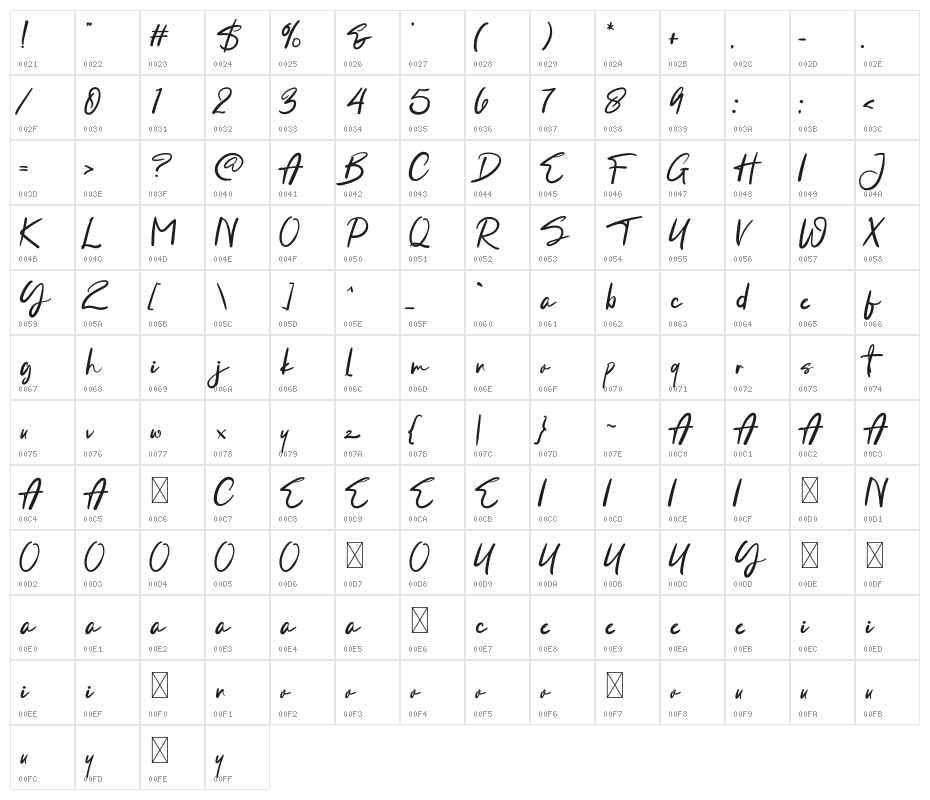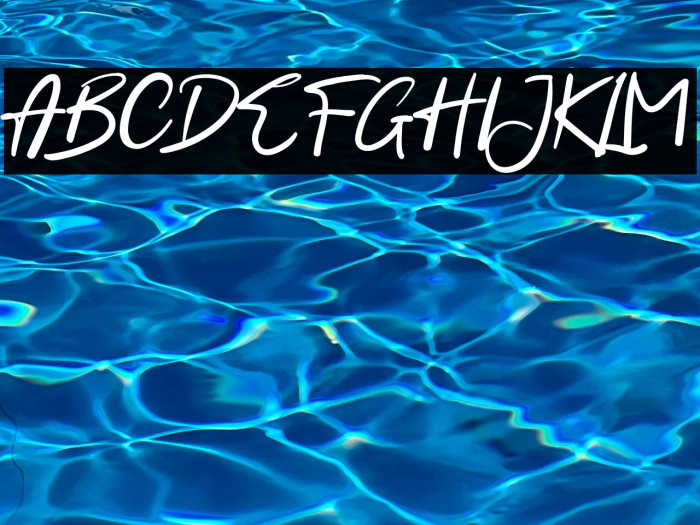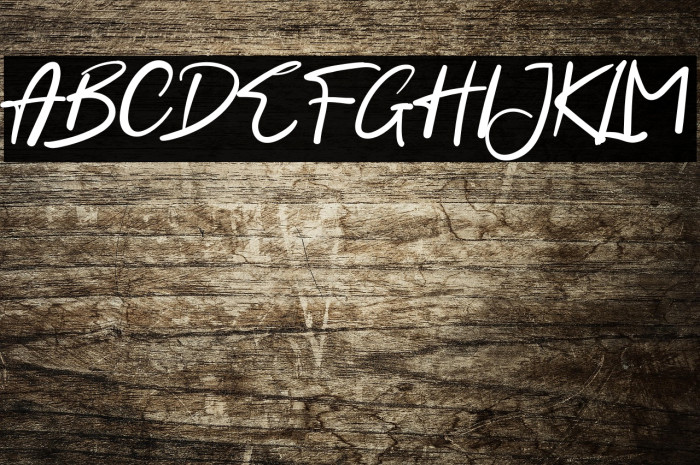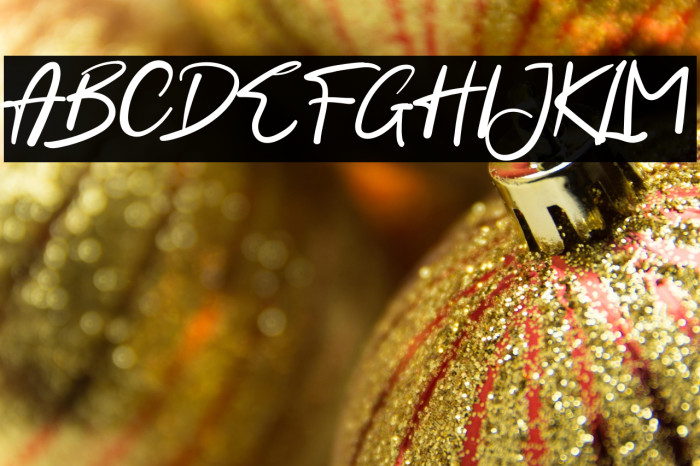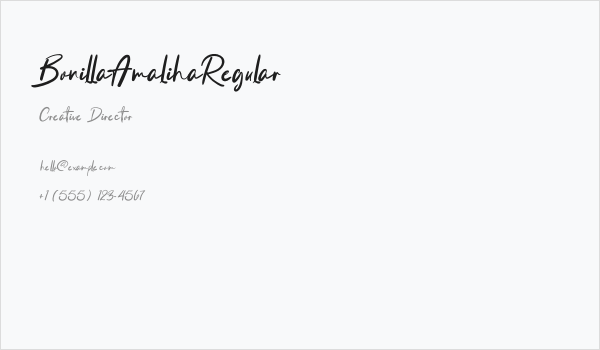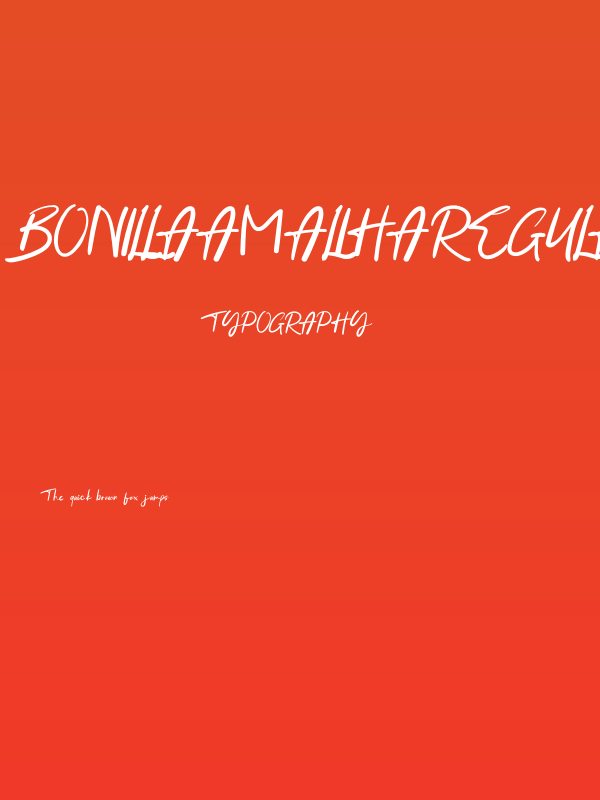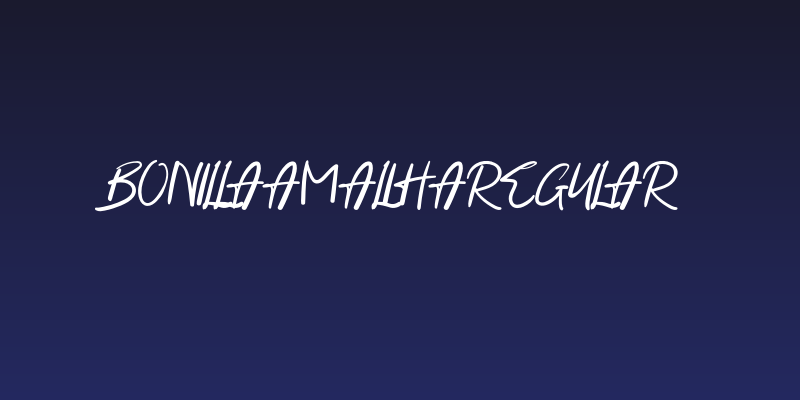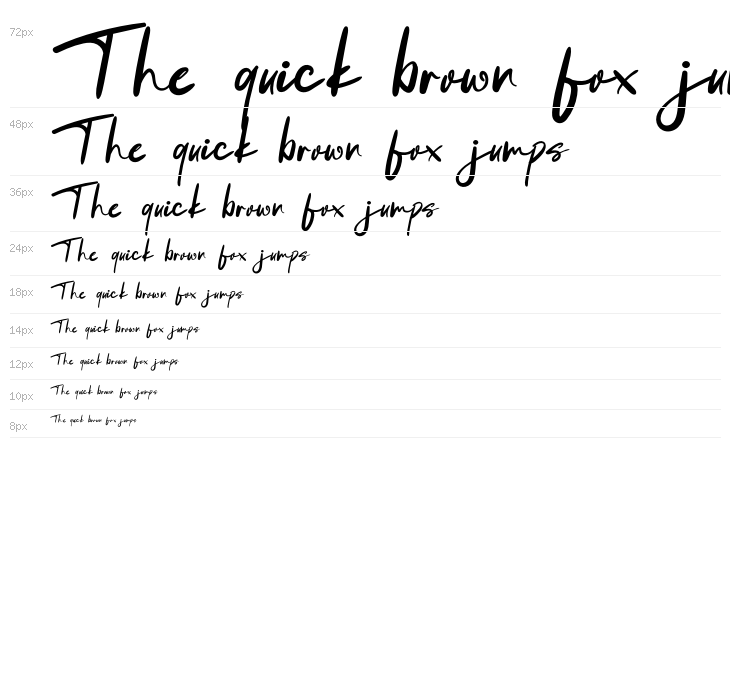
BonillaAmalihaRegular Font
BonillaAmalihaRegular Description
A flowing, handwritten script font with a casual and modern appearance. The letters are connected with a smooth, cursive style, giving it an elegant yet approachable feel.
| Overall Style | Modern, Casual |
| Proposed Projects | Invitations, greeting cards, personal branding. |